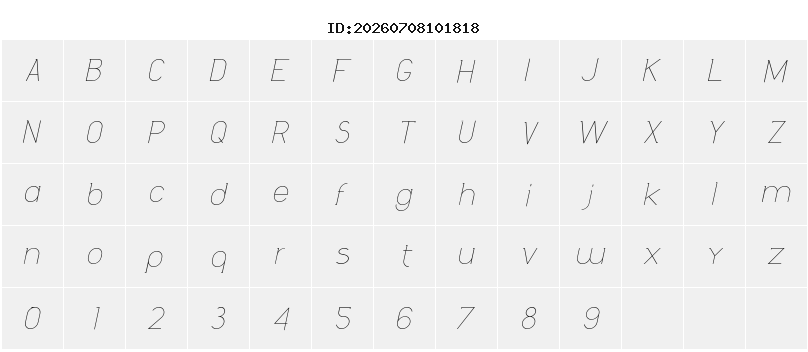
Daniela Italic Preview
• Font Name: Daniela Italic
• Font Style: Italique
• Full Font Name: Daniela Italic
About Daniela Italic.ttf
Daniela Italic.ttf is a modern, elegant sans-serif font designed for ultimate readability and visual harmony. Perfect for branding, headlines, web design, and print materials.